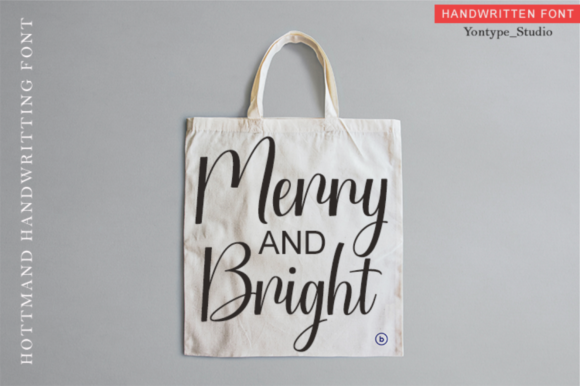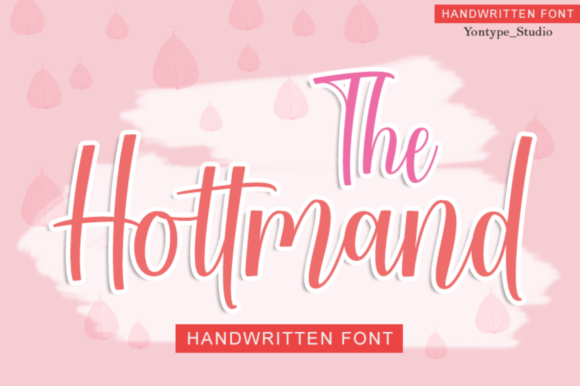
Introduction to Hottmand Font
Hottmand is a lovely and timeless handwritten font.
Why Choose Hottmand Font?
Hottmand Font offers exceptional quality and versatility, making it a valuable addition to your design toolkit. Whether you’re creating for personal projects or commercial use, Hottmand Font delivers professional results.